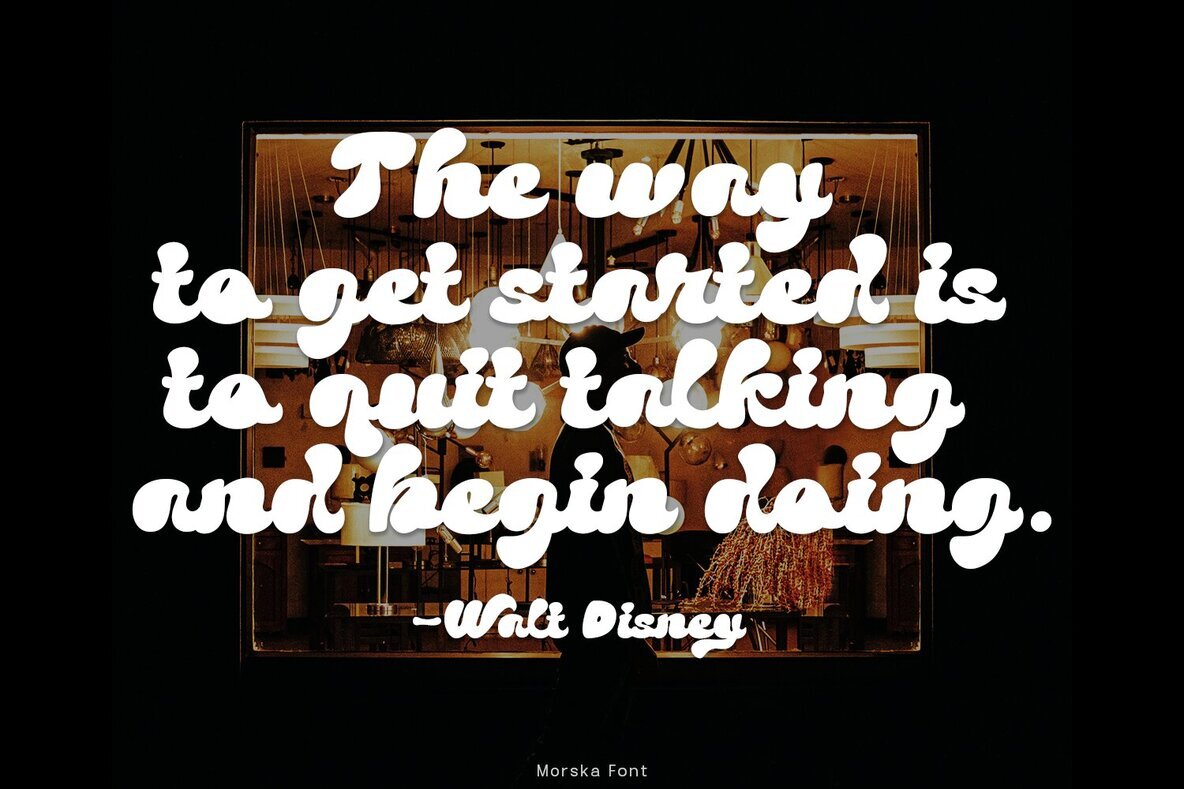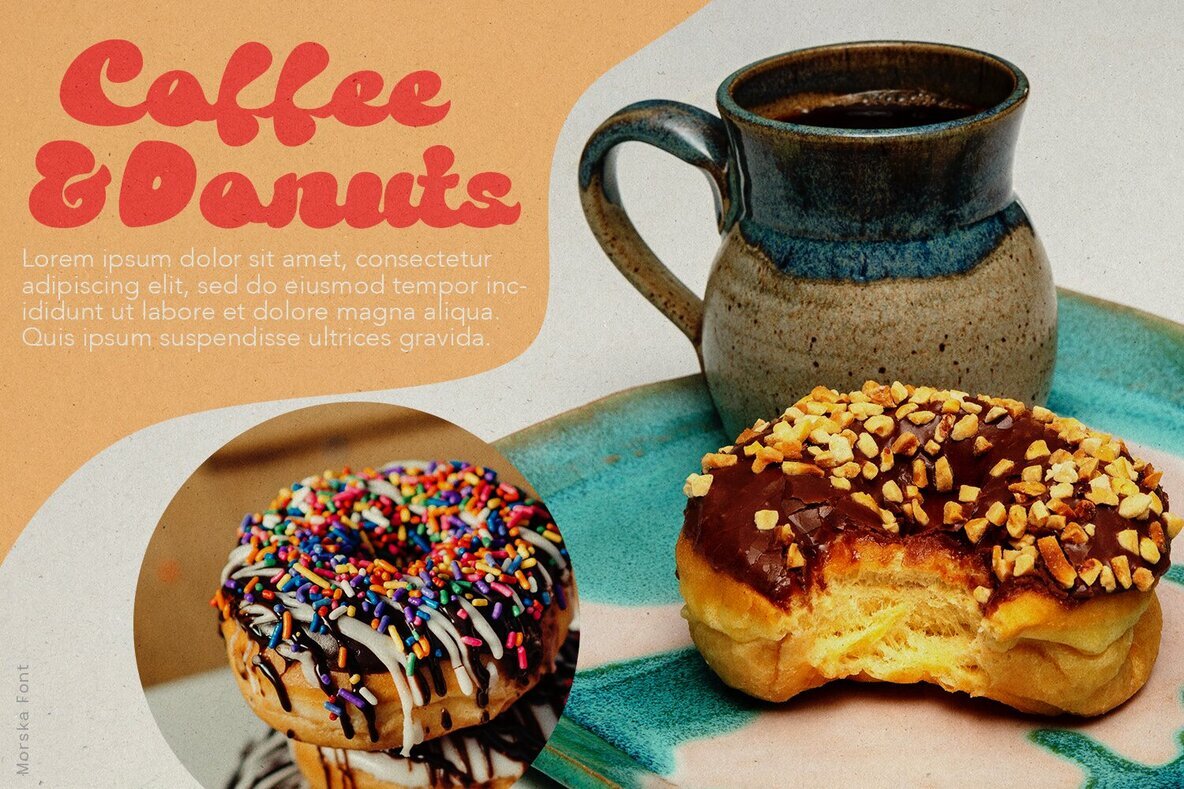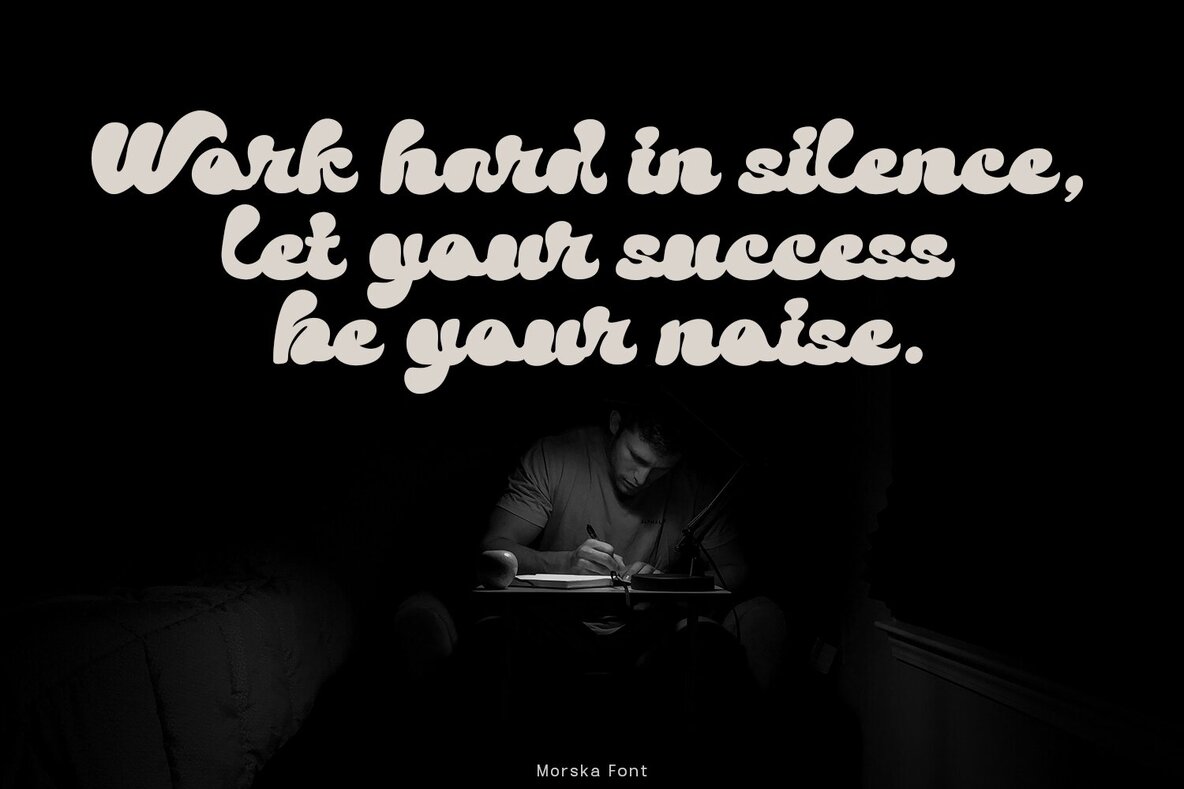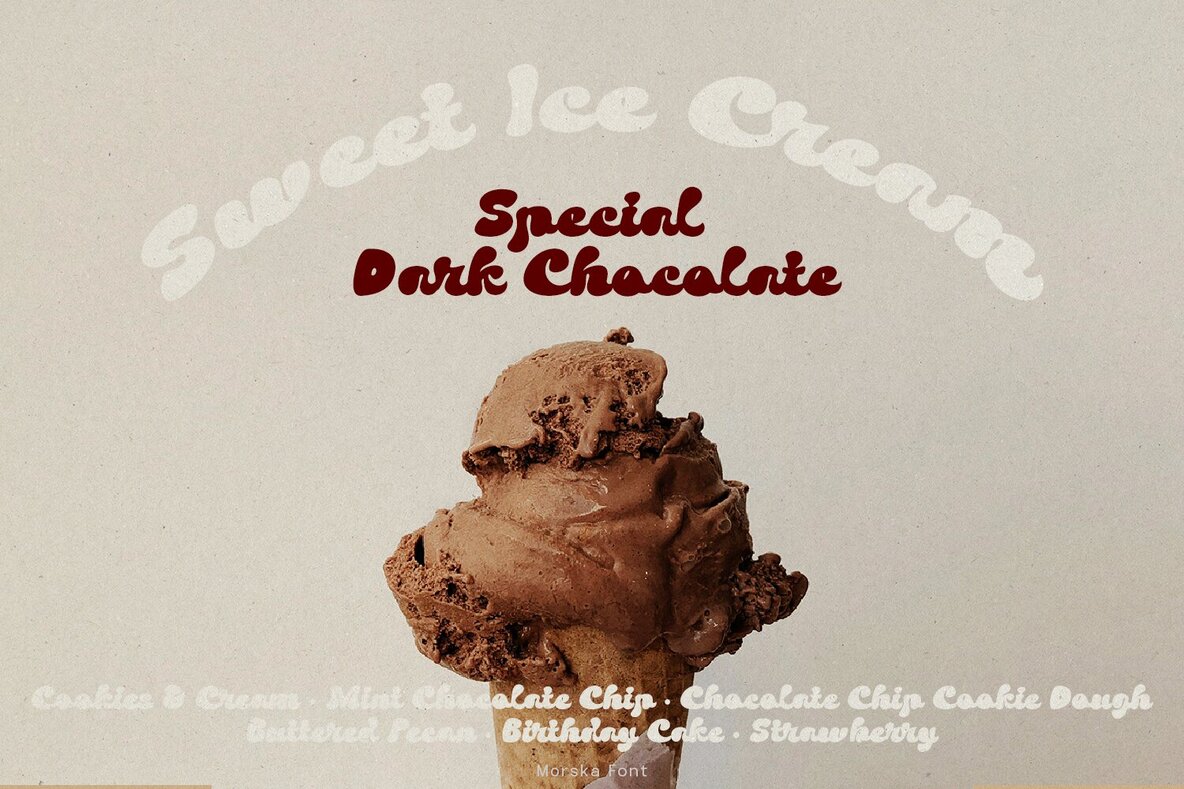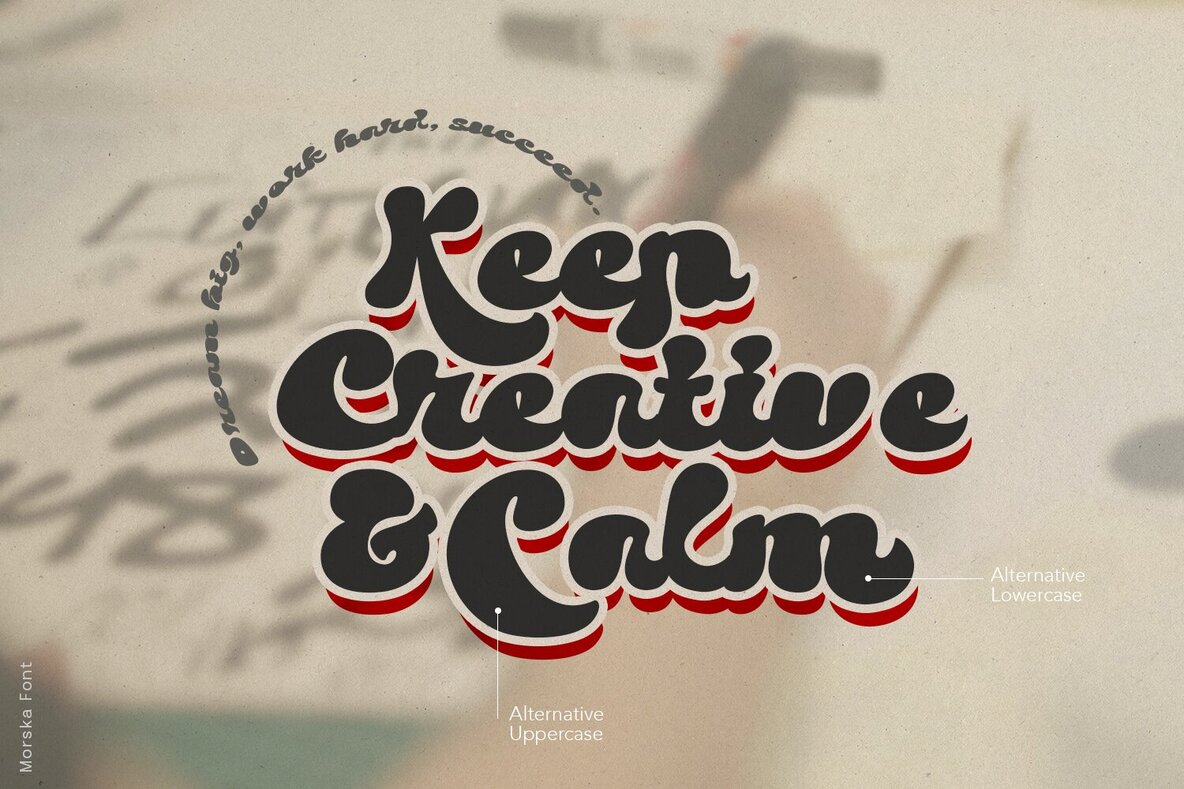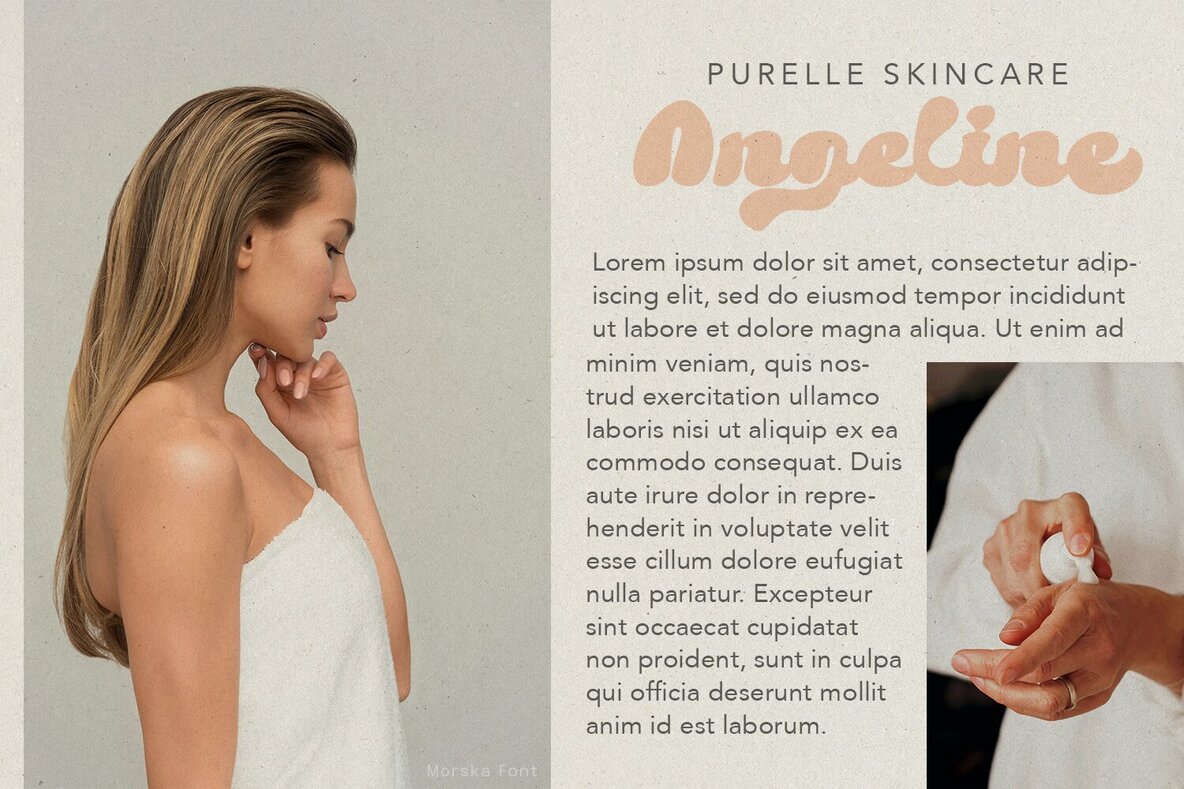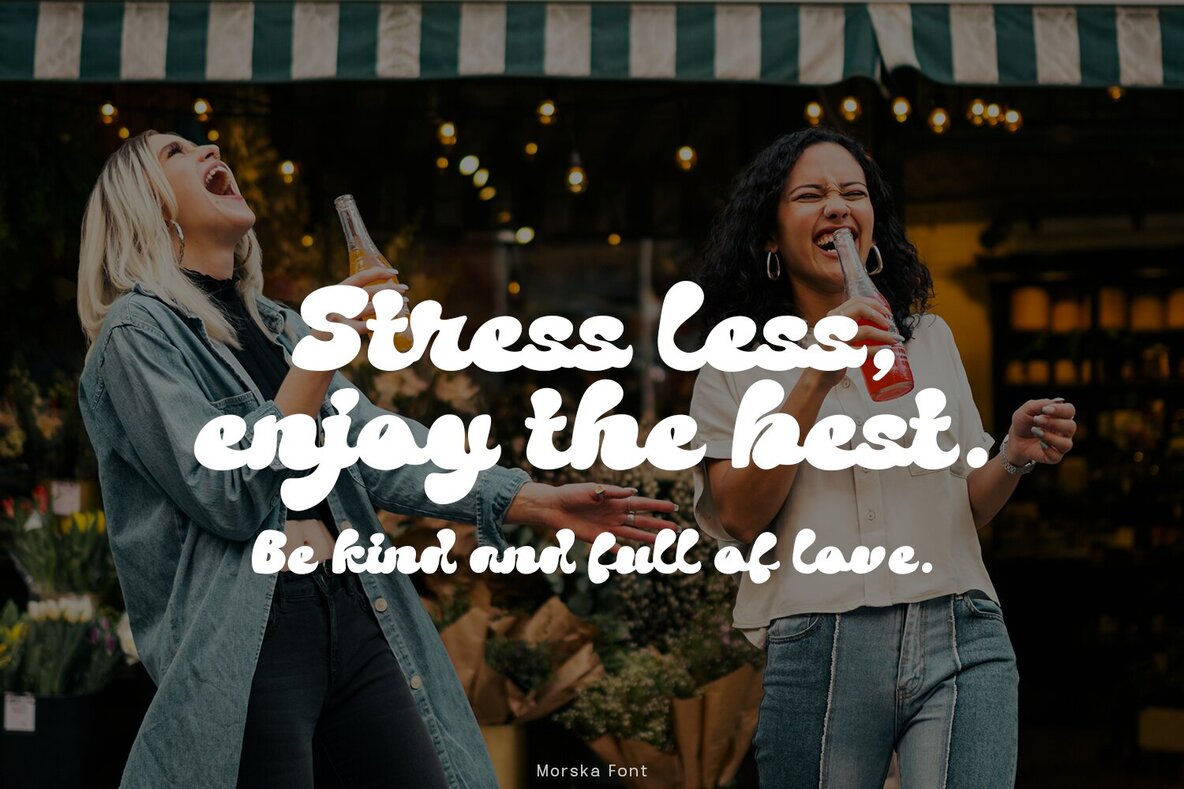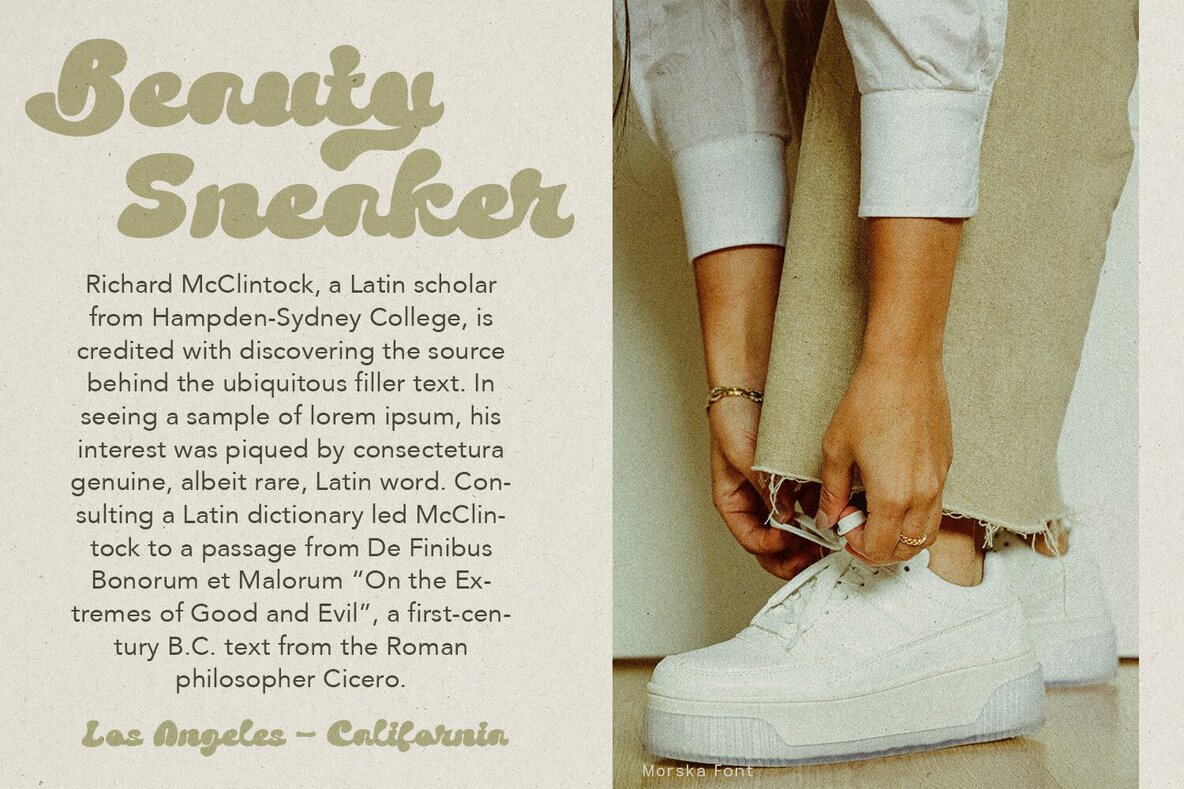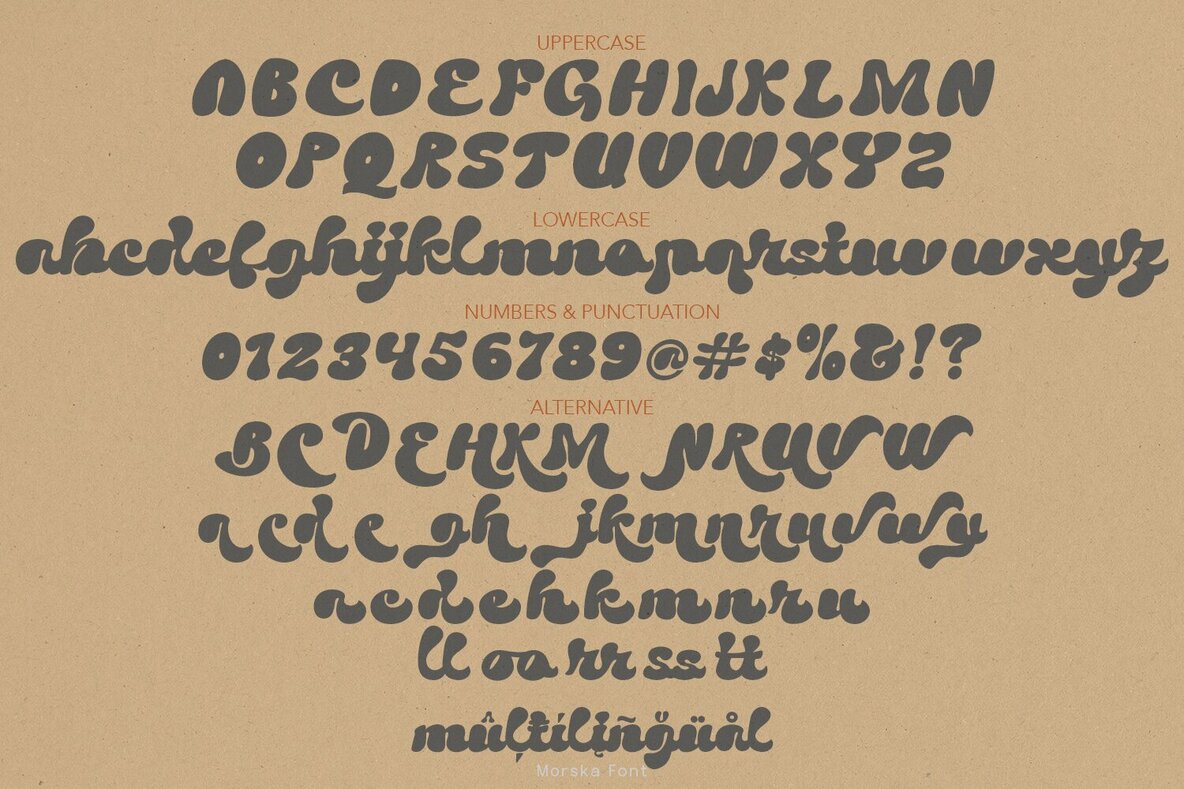
Morska Font
Morska Regular
Morska is a distinctive font that blends heavy groovy elements with an 80's script style. Its retro yet refined design offers versatility and rhythm, making it ideal for comfortable reading. This font is perfect for a variety of projects, providing a unique touch to each application.Morska: A Heavy Groovy Font with 80's Script Style